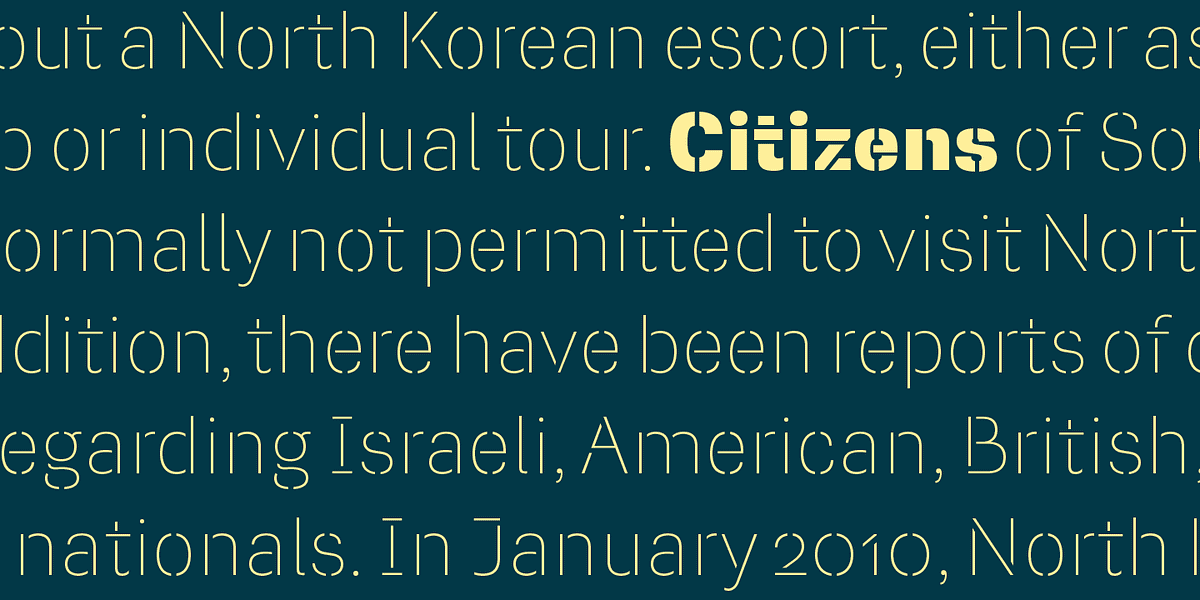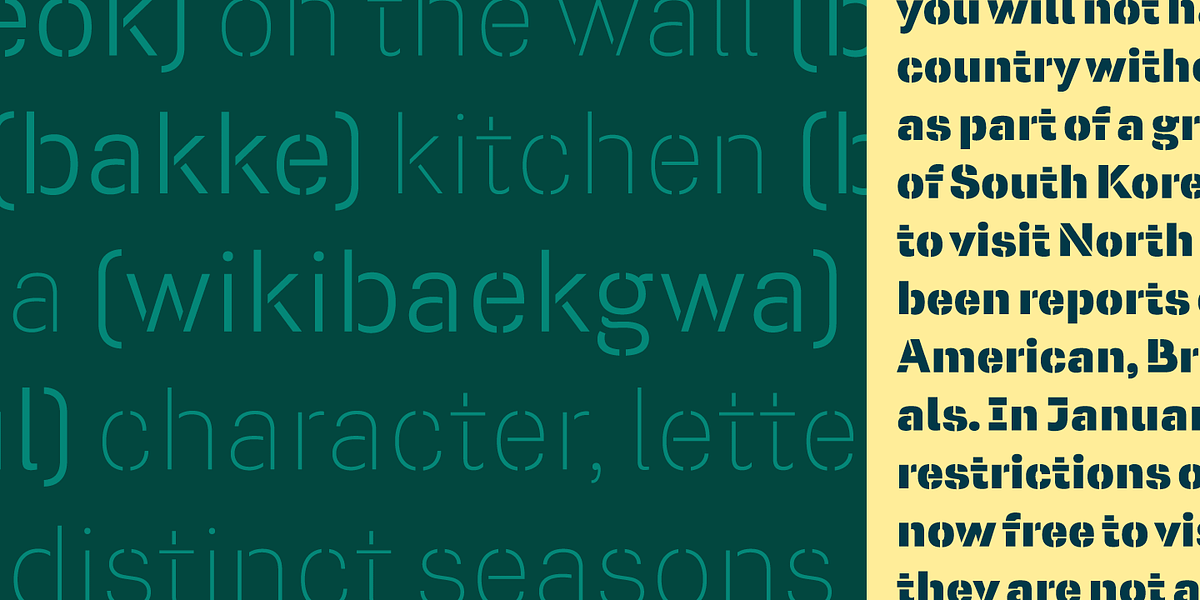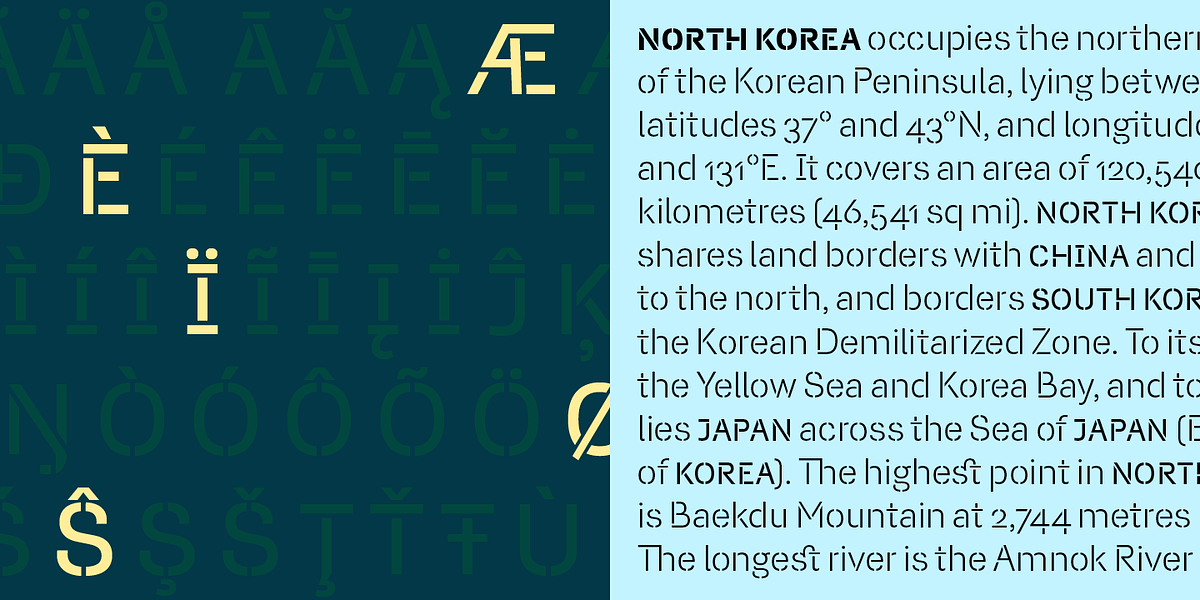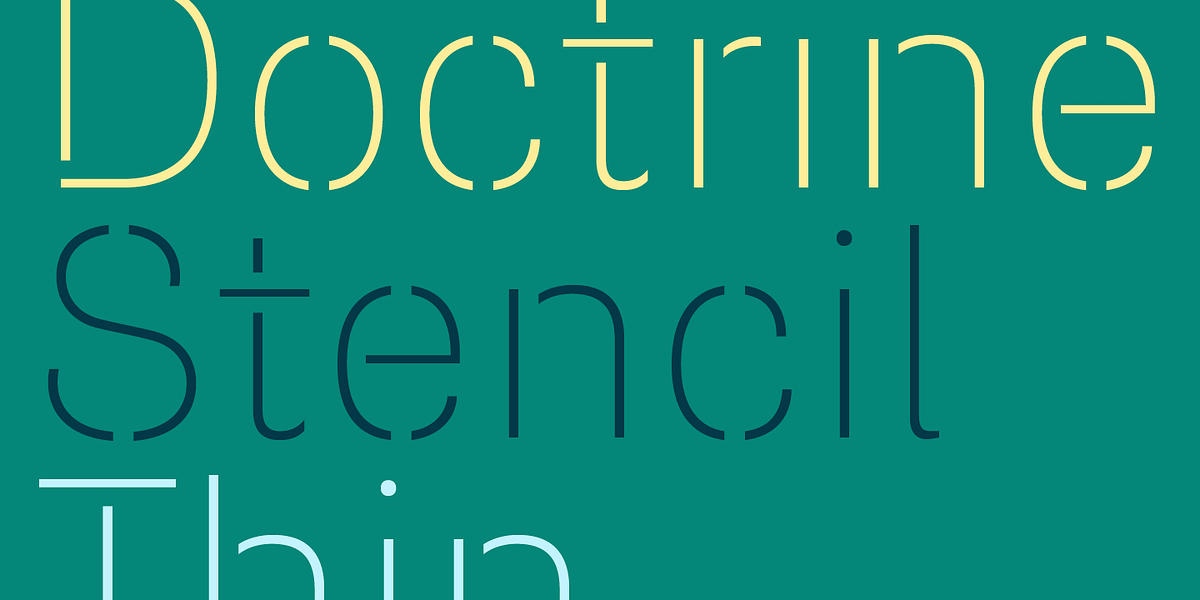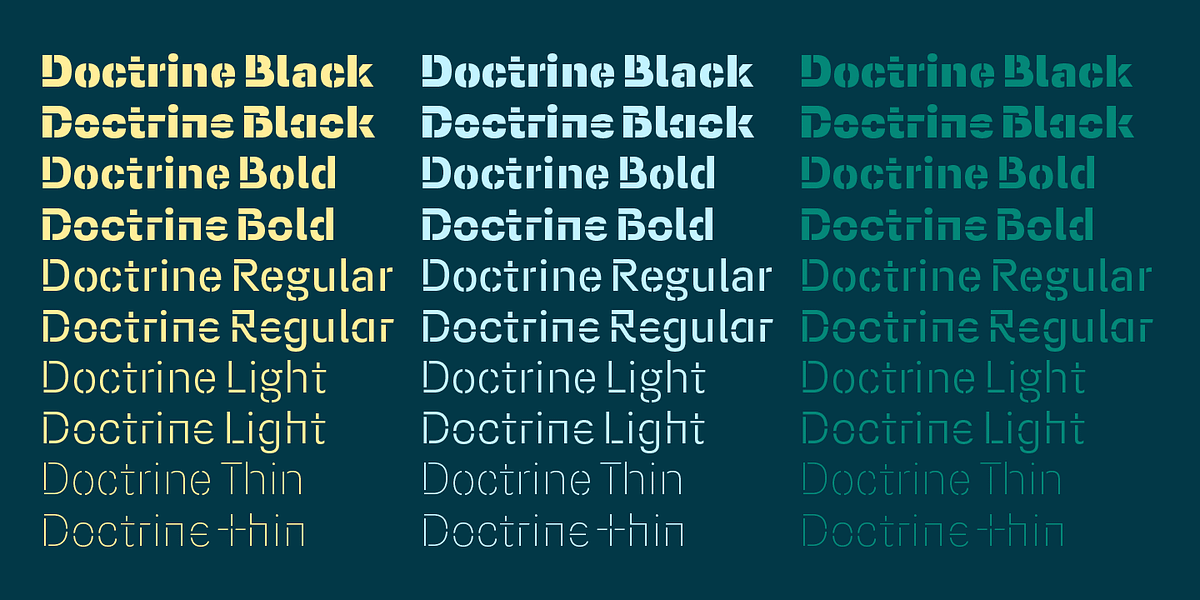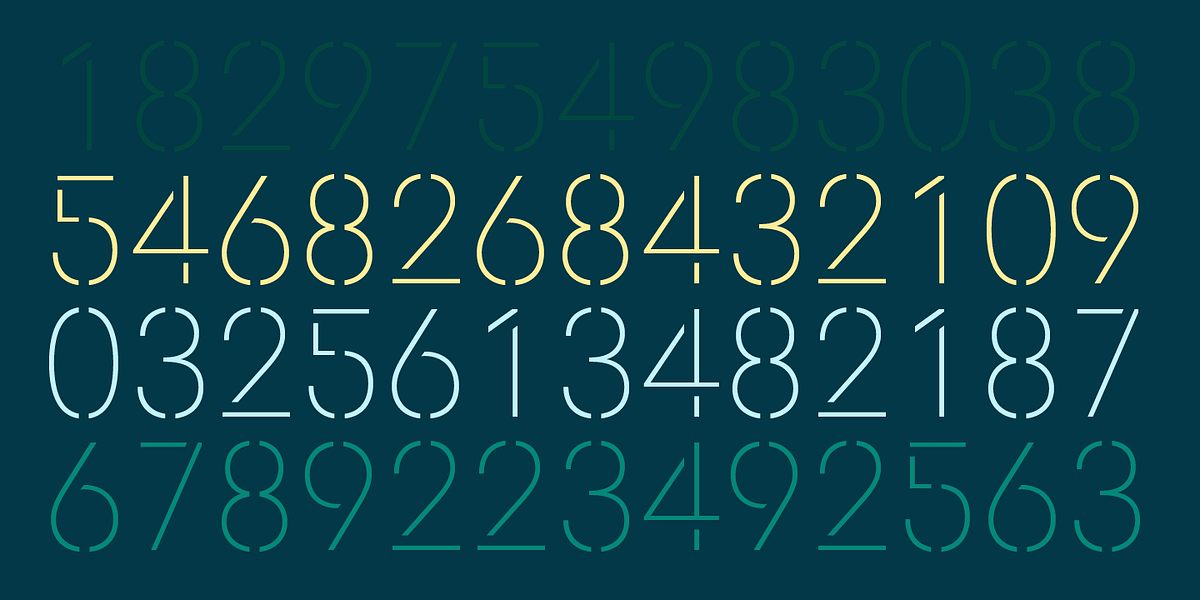
Doctrine Stencil
Doctrine Stencil is a bold display typeface with a stencil aesthetic. It draws inspiration from the North Korean national airline livery and retains a strong, industrial spirit while evolving into a more contemporary design. The font includes alternate character sets, ligatures, and various figure styles.